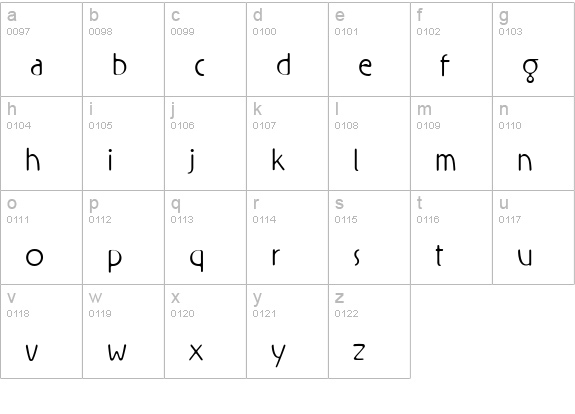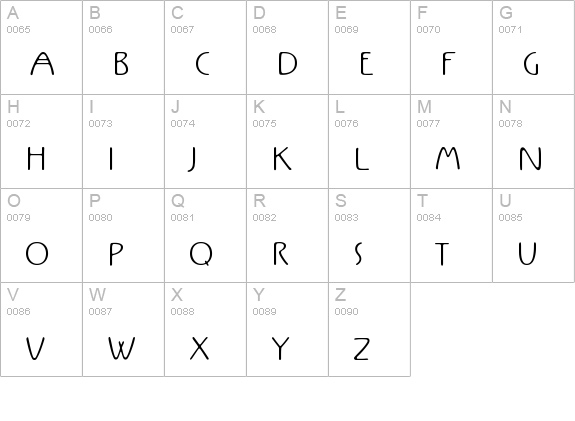
Rx-FiveZero Font Details
Introducing Rx-FiveZero font, a modern and versatile typeface that effortlessly combines sleek aesthetics with a touch of sophistication. With its clean lines and contemporary design, Rx-FiveZero is the perfect choice for a wide range of projects, from branding to editorial design. This font is not only visually appealing but also incredibly versatile, making it suitable for both digital and print applications. Whether you're working on a website, a magazine layout, or a social media campaign, Rx-FiveZero will elevate your design and make a lasting impression on your audience. What's even better is that Rx-FiveZero is available for free download at FontsMarket.com. So you can easily access this stunning font and incorporate it into your projects without any hassle. Don't miss out on the opportunity to enhance your designs with the elegance and style of Rx-FiveZero font. Download it today and start creating beautiful typographic compositions that stand out from the crowd.